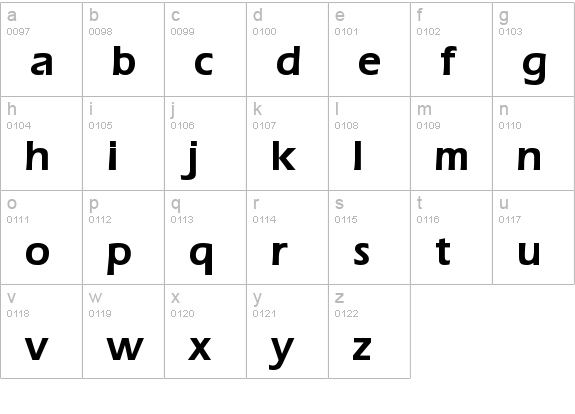
E820-Sans-Demi-Regular is a sub-bold, structured variant in the E820 typeface family \xE2\x80\x94 well suited to sub-headlines and emphasised passages.
E820-Sans-Demi-Regular is a modern and versatile font that strikes the perfect balance between elegance and readability. With its clean lines and bold presence, this typeface is ideal for a wide range of design projects, from branding to editorial layouts. What sets E820-Sans-Demi-Regular apart is not just its stylish aesthetic, but also the fact that it is completely free to download. That's right, you can access this high-quality font at no cost on FontsMarket.com. Whether you're a seasoned designer looking to add a new font to your collection or a budding creative exploring typography for the first time, E820-Sans-Demi-Regular is a fantastic choice that won't break the bank. This font features a full set of characters, including uppercase and lowercase letters, numbers, and punctuation marks. Its versatility makes it suitable for a variety of design projects, such as posters, logos, packaging, and more. E820-Sans-Demi-Regular is a must-have addition to any designer's toolkit, offering both style and functionality in one beautiful package. Download it today and elevate your designs with this stunning typeface.